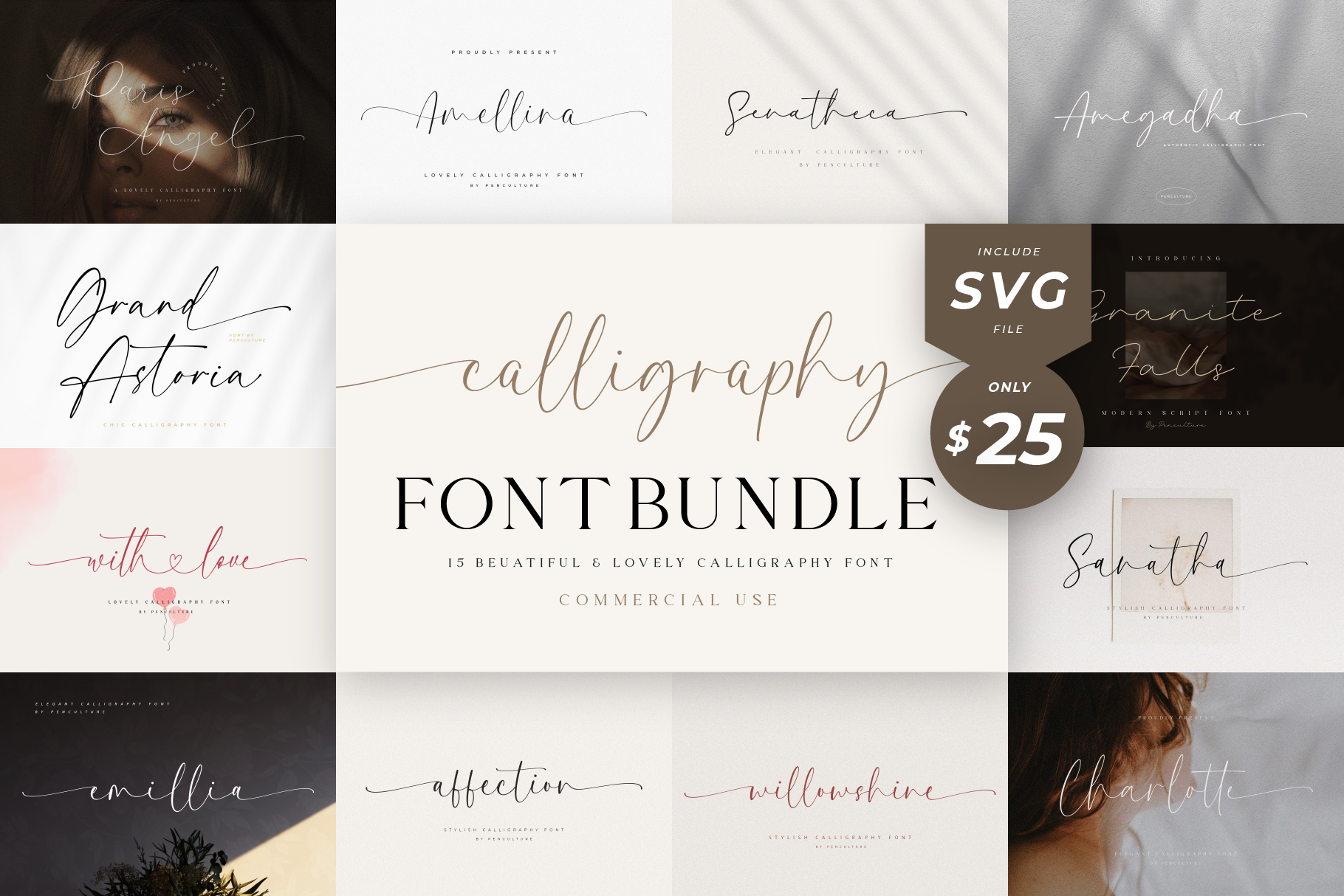
Calligraphy Font Bundle Voll II
Transform your designs with our exquisite bundle of 15 calligraphy fonts, meticulously crafted to bring elegance and charm to any project. Perfect for weddings, invitations, greeting cards, and other special occasions, these fonts will add a touch of sophistication and romance to your creations. From the delicate swirls of Romantic Flourish and the soft grace of Wedding Bliss to the timeless strokes of Graceful Script and the playful elegance of Sweetheart Script, this bundle offers a diverse range of styles to suit every need.
Each font in our collection is designed with precision, ensuring every letter flows beautifully. Whether you’re crafting wedding programs, save-the-dates, or heartfelt notes, these fonts will elevate your projects and make your messages stand out.
Our Elegant Calligraphy Font Bundle is versatile, high-quality, and easy to use with all major design software. Whether you’re creating for love stories, upscale events, or personal keepsakes, these fonts will help you design unforgettable, timeless pieces.